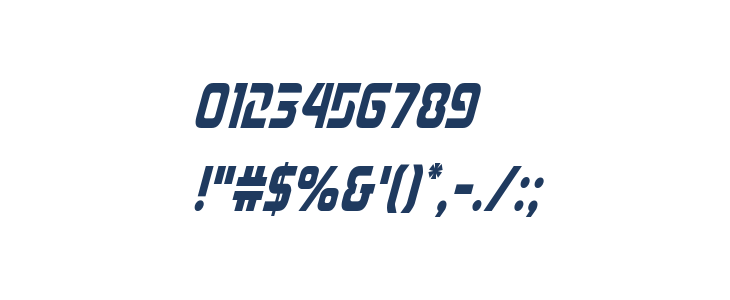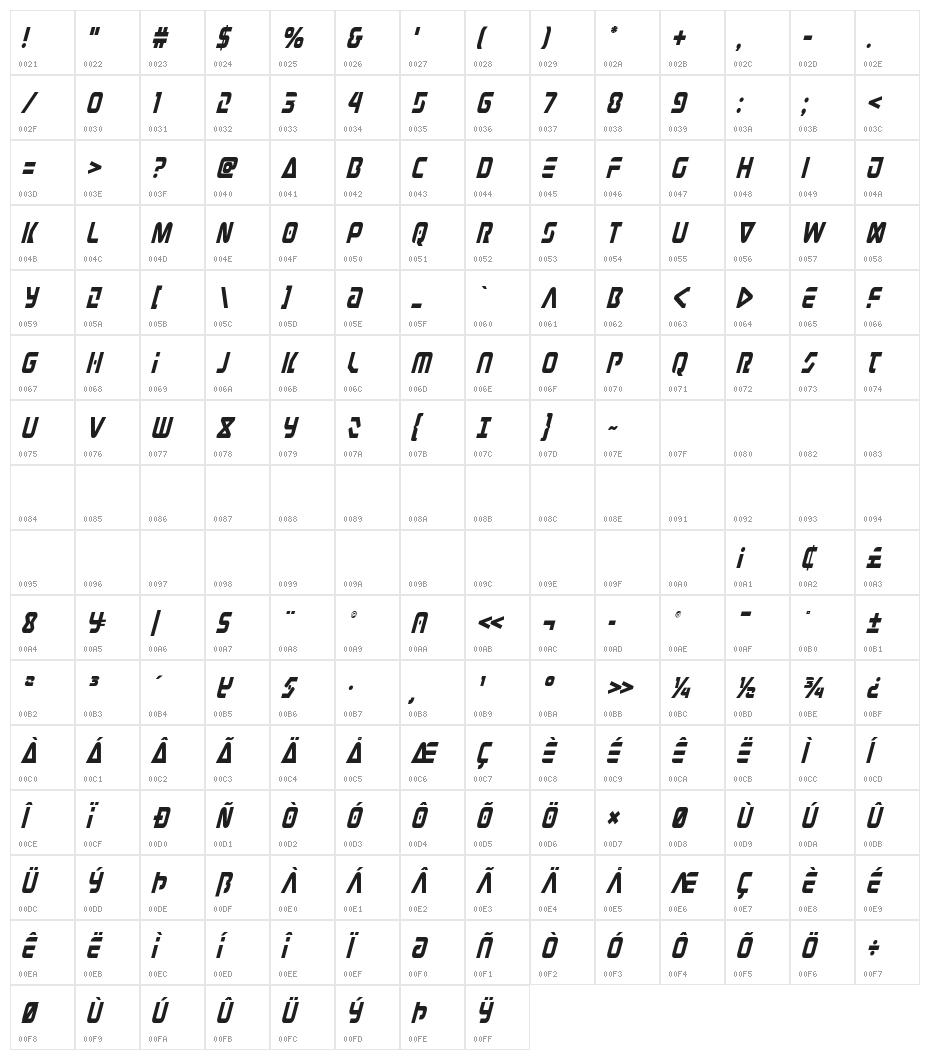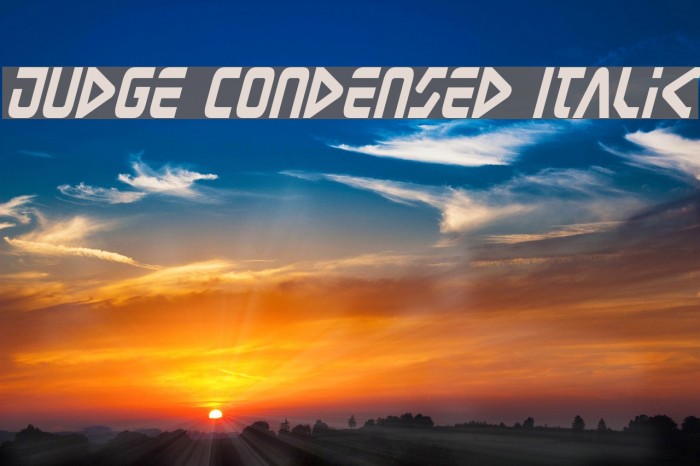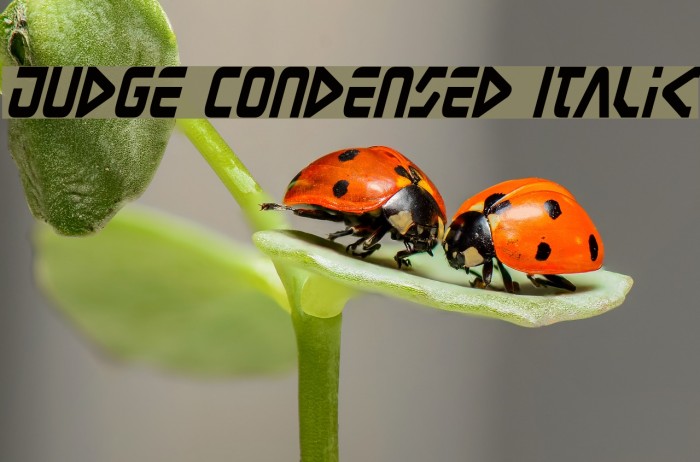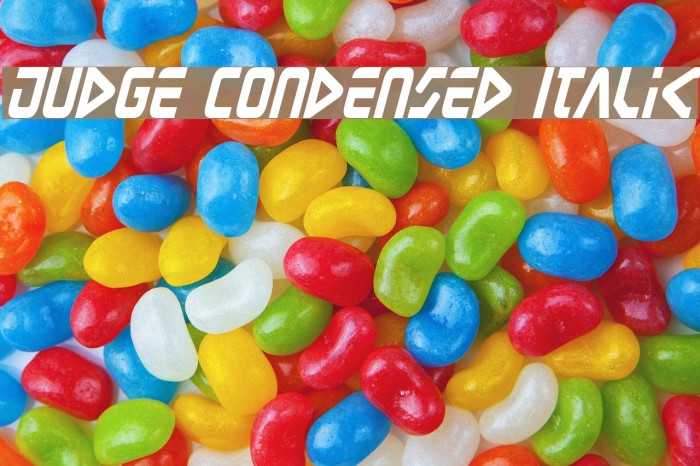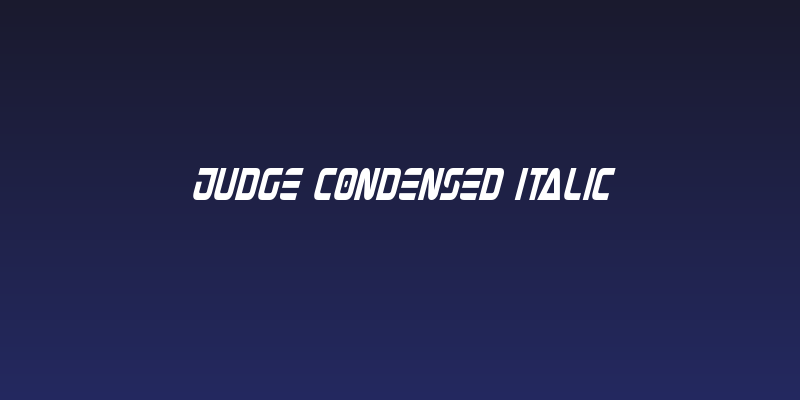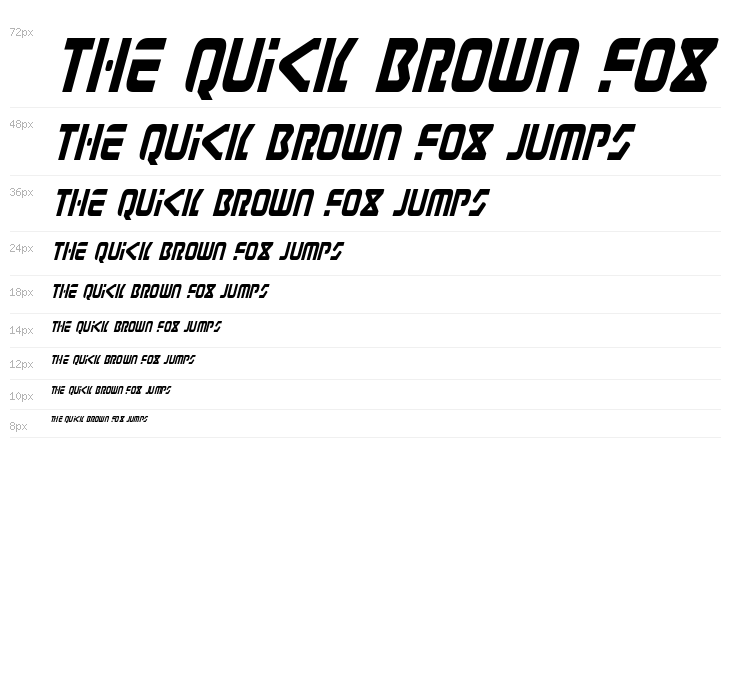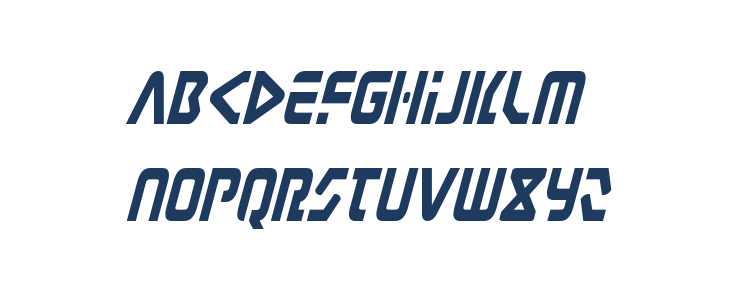
Judge Condensed Italic Font
Judge Condensed Italic Description
This font features a bold, condensed style with a distinct italic slant, giving it a dynamic and forward-moving appearance. The characters are designed with sharp angles and a geometric structure, creating a modern and futuristic look. The uppercase and lowercase letters maintain a consistent style, with the uppercase letters being particularly striking due to their boldness and angularity. The numbers and special characters follow the same design principles, ensuring uniformity across all glyphs. The font's condensed nature allows for efficient use of space, making it suitable for headlines and other applications where space is limited.